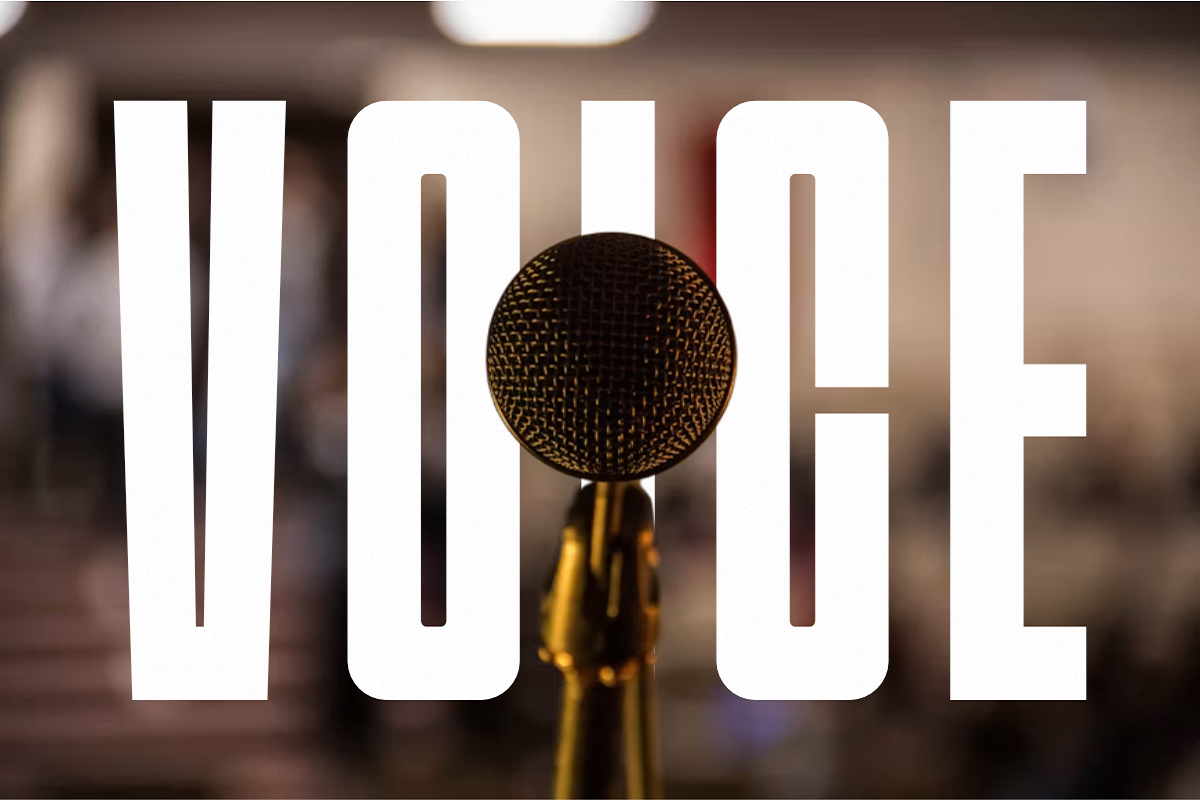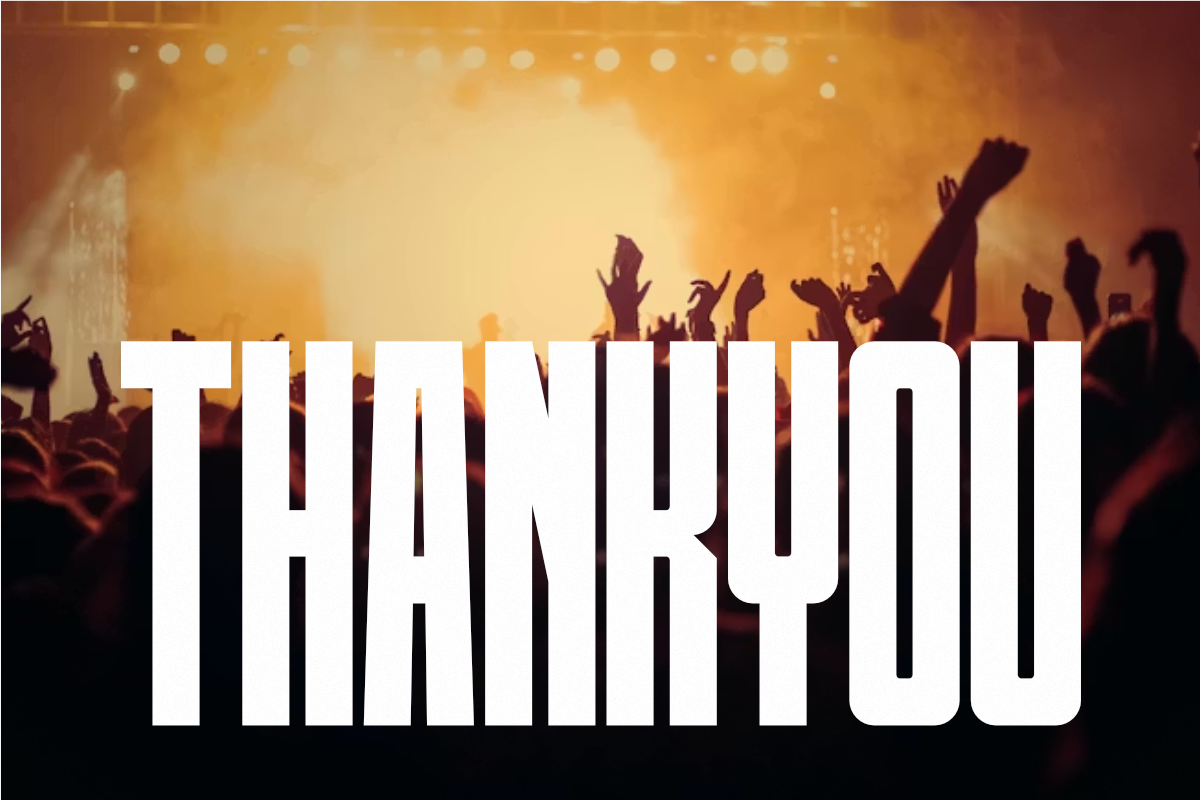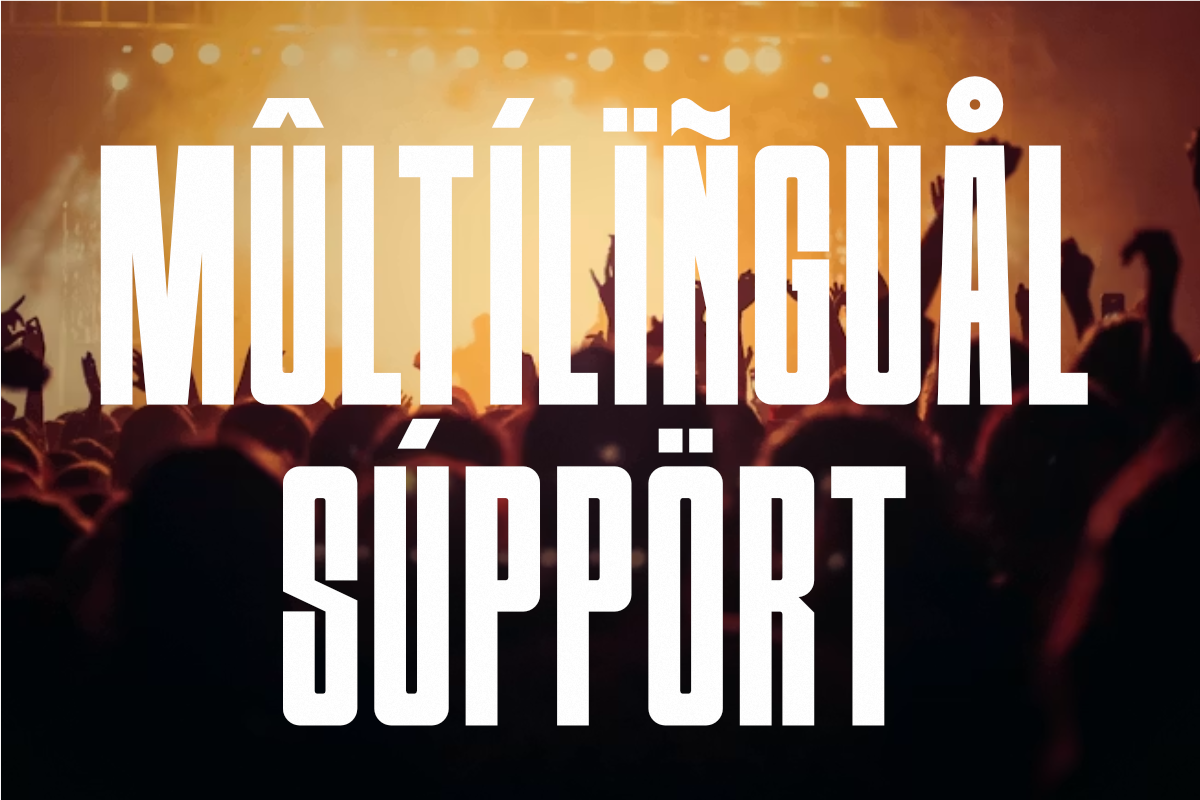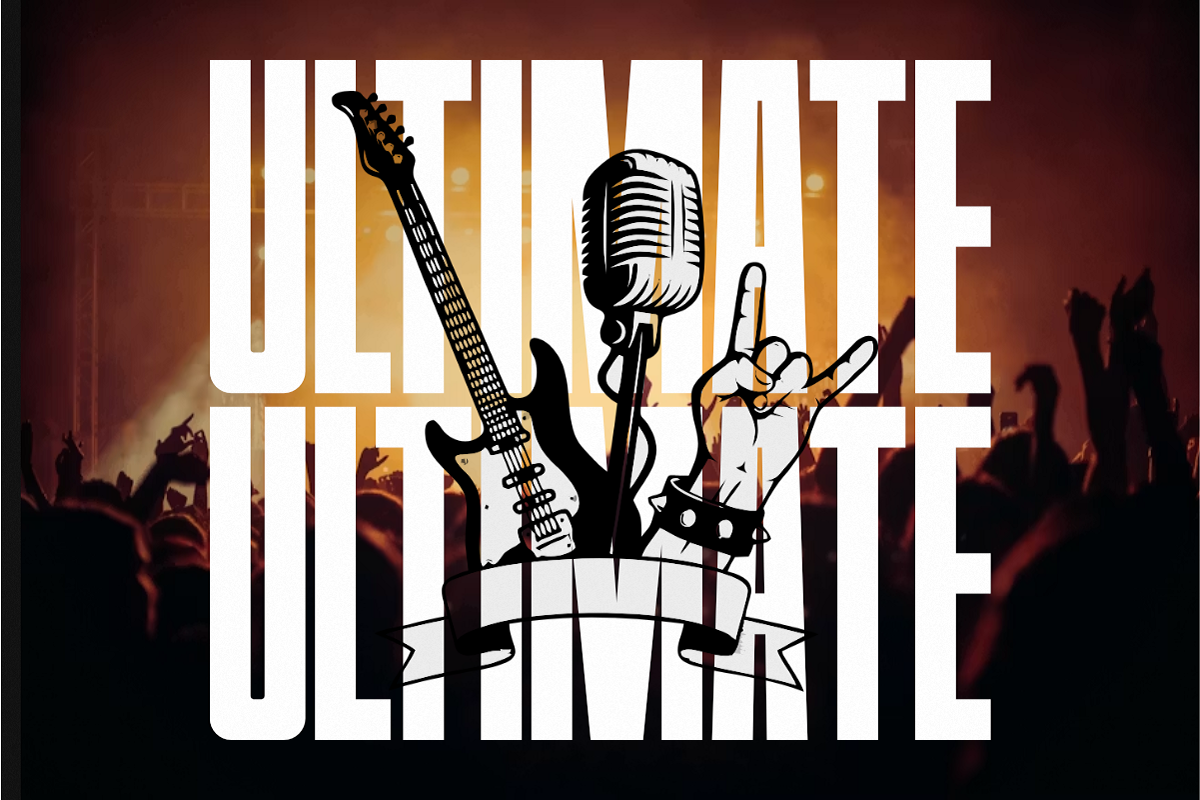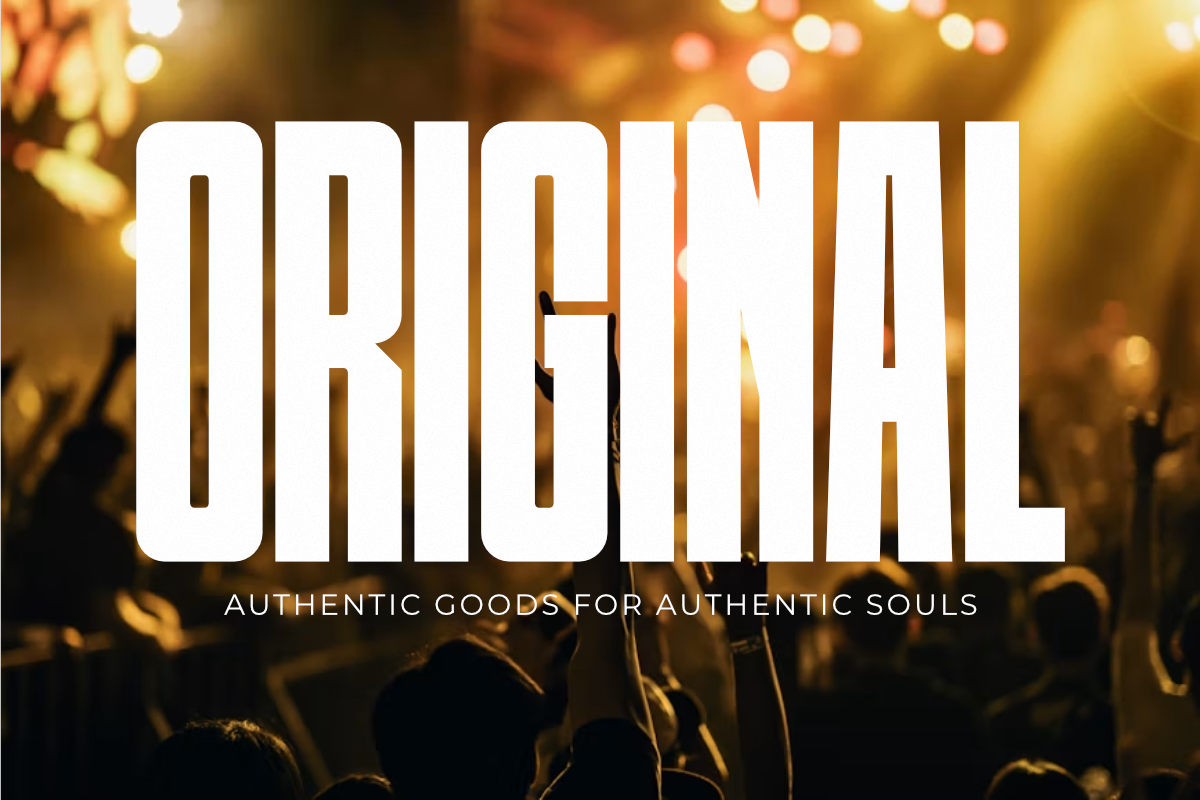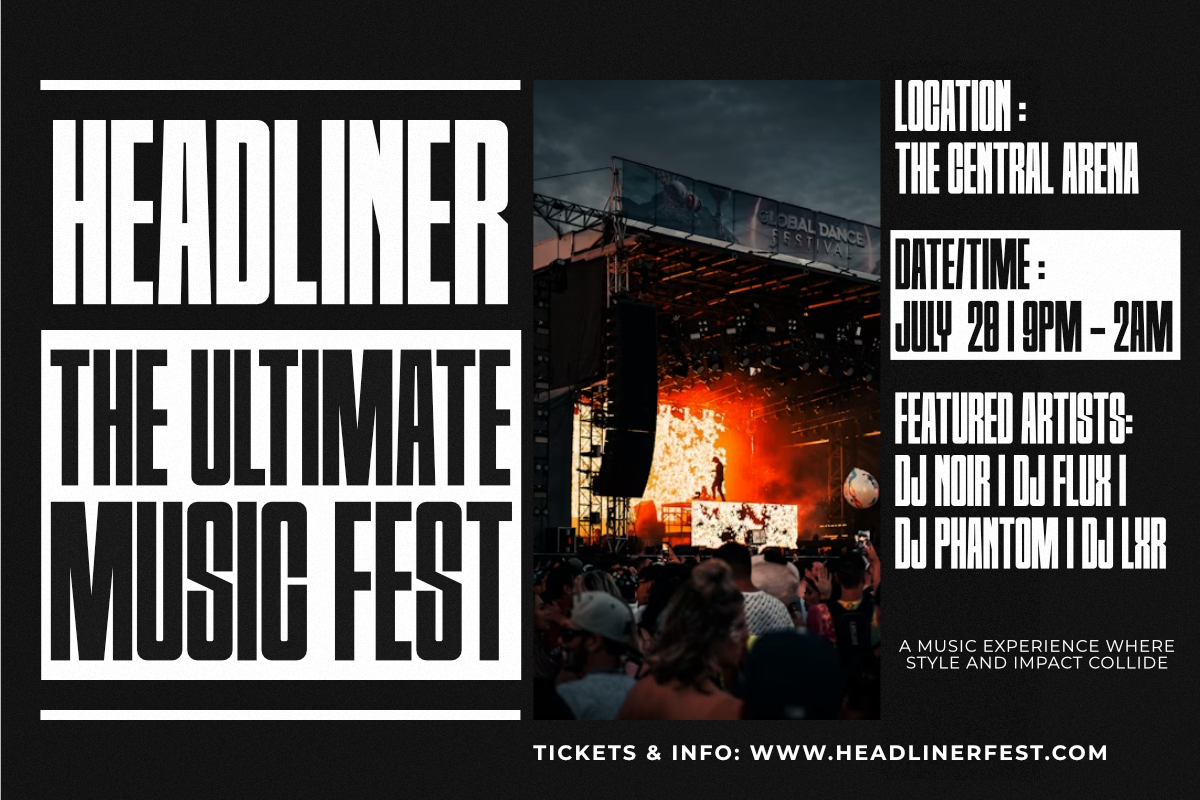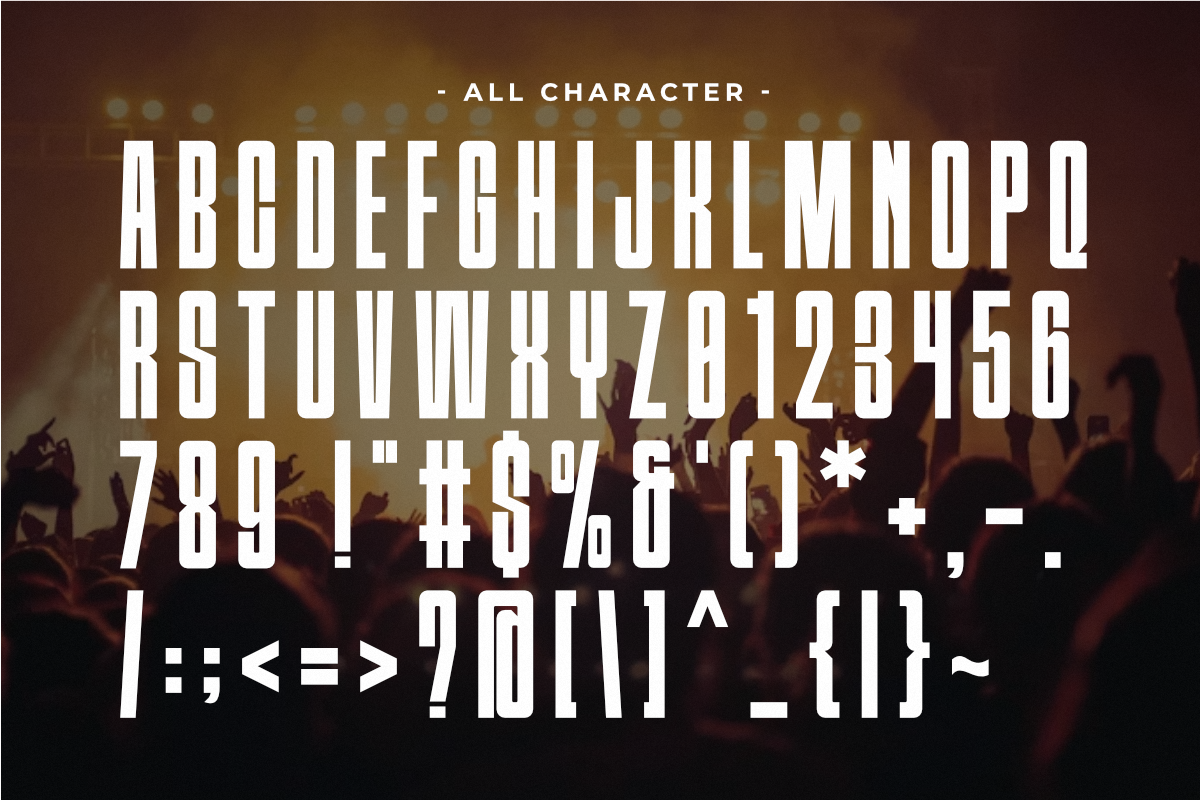
Headliner - Condensed Sans Serif
Headliner is a commanding and high-impact Modern Condensed Sans Serif font engineered to capture center stage. Designed with tall, powerful vertical structures, sharp lines, and an ultra-bold silhouette, this all-caps typeface is built for minimalist branding, music festival posters, cinematic titles, and trendy streetwear logos. Its sleek, space-saving layout guarantees incredible readability in tight spaces, making it the ultimate tool for striking headlines, sports media, event signage, and digital marketing materials that demand an authoritative and contemporary presence.